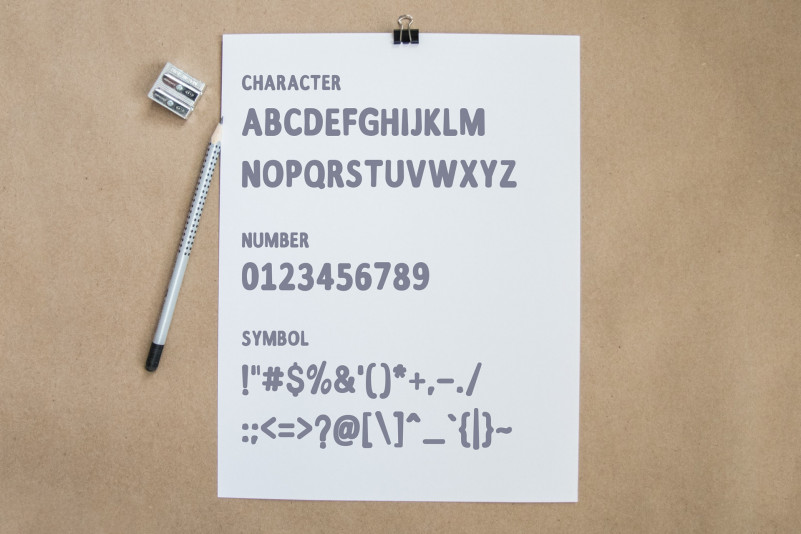
Supercraft Free Font
Thank you for looking! This is a handwriting typeface designed to make your design or your hand-lettering easily look more louder and bold. Introducing Supercraft Handwritten. It is design and shared by eko samp. Supercraft Handwritten is a fun and quirky handwritten font, easy to read, and perfect for logo, cards, posters, baby clothes, and more. This font creates a fun and happy look! Features include: Uppercase, numbers, and punctuation.